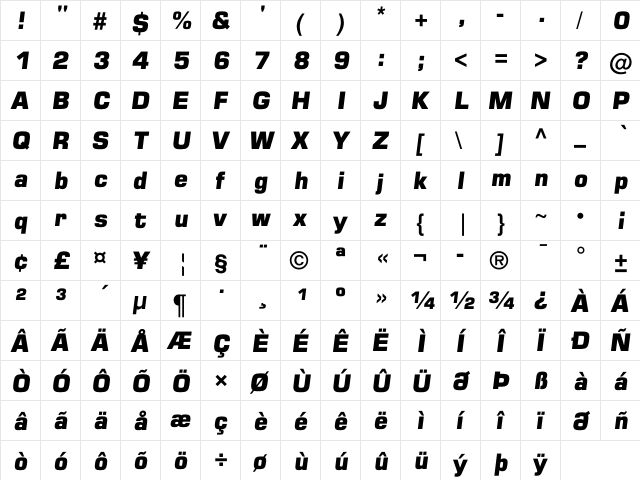
LHF Naylorville Italic
| Foundry | Chuck Davis for Letterhead Fonts |
Design Context for LHF Naylorville Typeface
LHF Naylorville takes a measured approach to typography — its balanced proportions and neutral character make it a reliable workhorse for both digital and print work. The slanted form adds forward momentum and visual energy.
Pro Tip: Use LHF Naylorville for emphasis, pull quotes, and subheadings where its slanted energy can add rhythm to the layout.